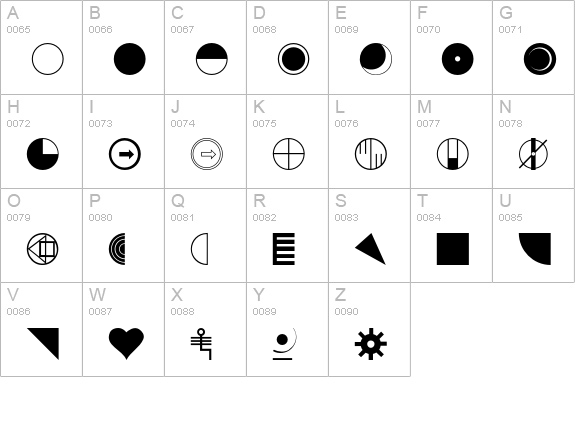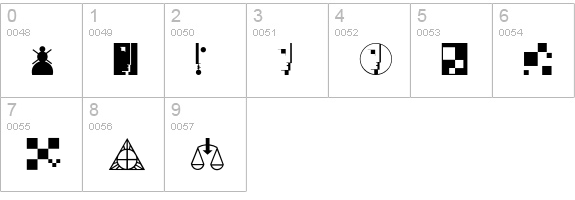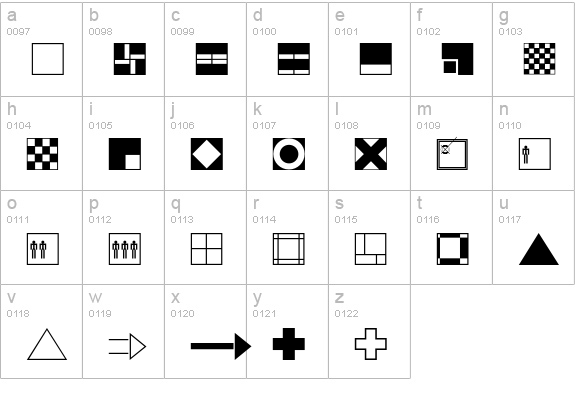
P22Bauhaus-Extras Font Details
P22Bauhaus-Extras font is a remarkable typeface that pays homage to the iconic Bauhaus design movement. With its clean lines, geometric shapes, and modernist aesthetic, this font captures the essence of the Bauhaus philosophy. Featuring a wide range of unique symbols, ornaments, and decorative elements, P22Bauhaus-Extras font offers endless possibilities for creative expression. Whether you're designing a logo, poster, or any other visual project, this font will add a touch of sophistication and elegance. One of the best things about P22Bauhaus-Extras font is that it is freely available to download at FontsMarket.com. This means that you can easily access this incredible font without any hassle or cost. Whether you're a professional designer or just someone who appreciates good typography, this font is a must-have addition to your collection. The versatility of P22Bauhaus-Extras font is truly impressive. With its extensive set of characters and symbols, you can create eye-catching designs that stand out from the crowd. From simple and minimalistic compositions to intricate and elaborate artworks, this font will elevate your creative projects to new heights. The attention to detail in P22Bauhaus-Extras font is unparalleled. Every curve, every angle, and every stroke has been meticulously crafted to ensure a flawless and harmonious appearance. This font exudes a sense of precision and craftsmanship that is synonymous with the Bauhaus movement. Whether you're a graphic designer, a typographer, or simply someone who appreciates beautiful design, P22Bauhaus-Extras font is a must-have addition to your collection. Its timeless elegance and versatility make it a perfect choice for a wide range of projects. Don't miss out on the opportunity to download this incredible font for free at FontsMarket.com. Start exploring the endless possibilities that P22Bauhaus-Extras font has to offer and bring your designs to life with its unique and captivating style.